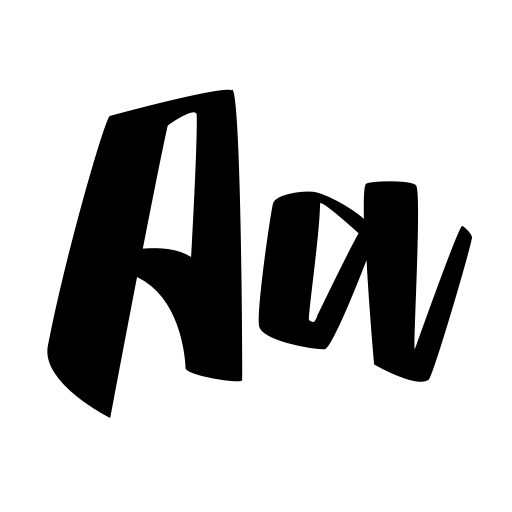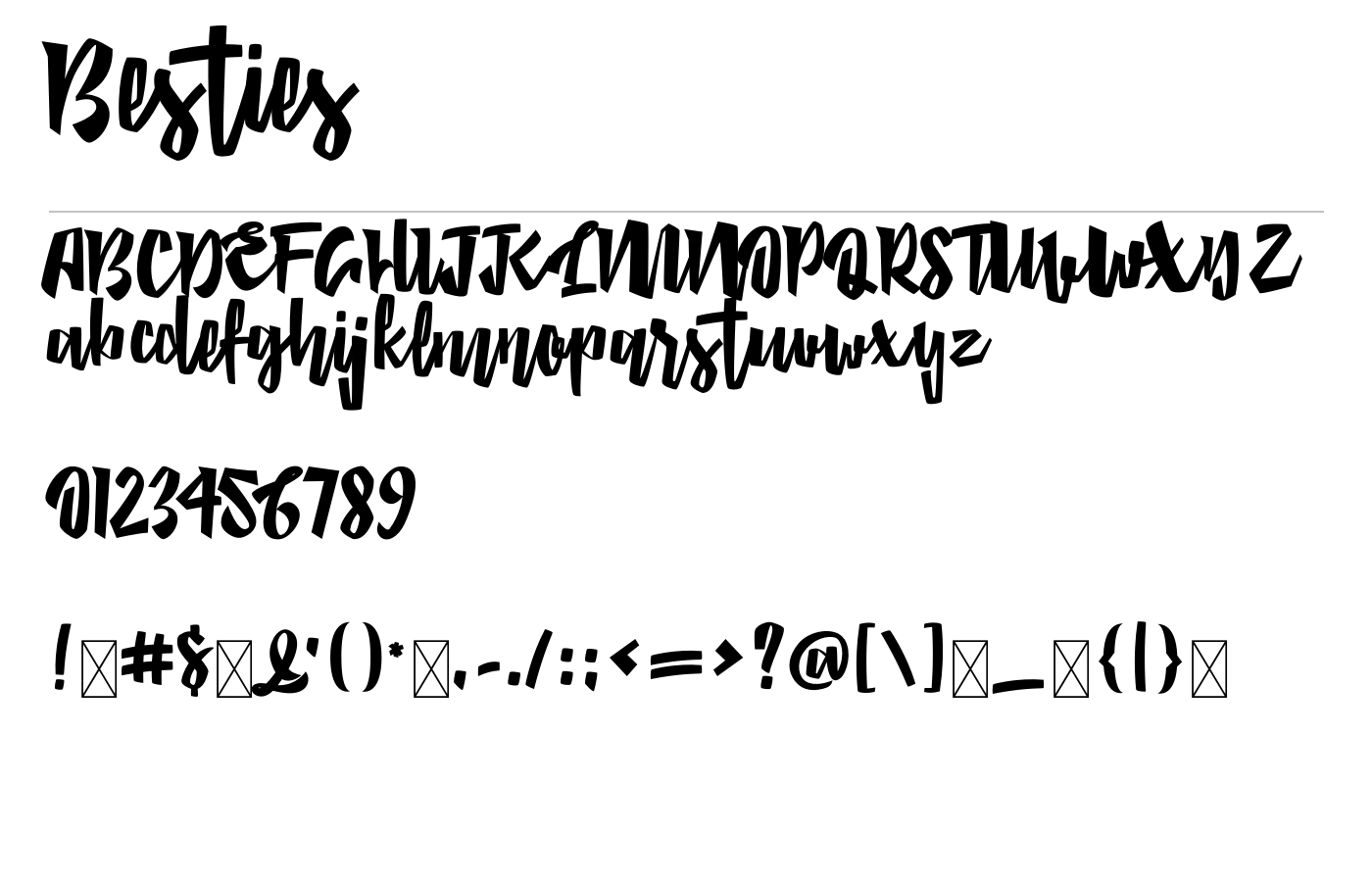
Besties Font is a bold, playful script typeface with an energetic, hand-drawn feel. Its thick strokes and lively letterforms make it perfect for fun, casual branding or eye-catching headlines, bringing a friendly and dynamic personality to any design. This font works especially well for social media graphics, invitations, and youthful packaging where a warm, approachable vibe is desired.
Besties Font
About Besties Font
| Font family | Besties Font |
| Designer | Agni Ardi Rein Prasetyo |